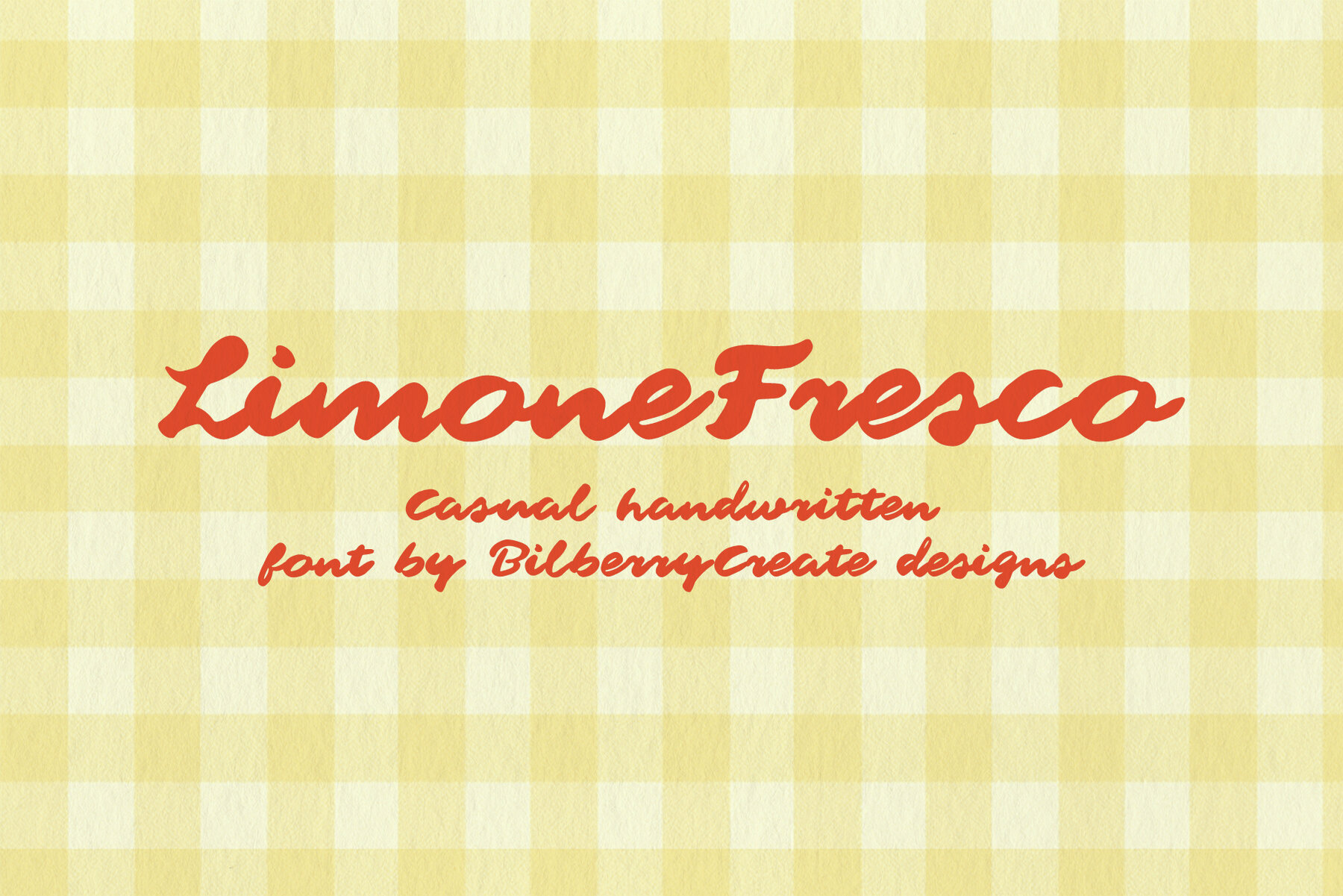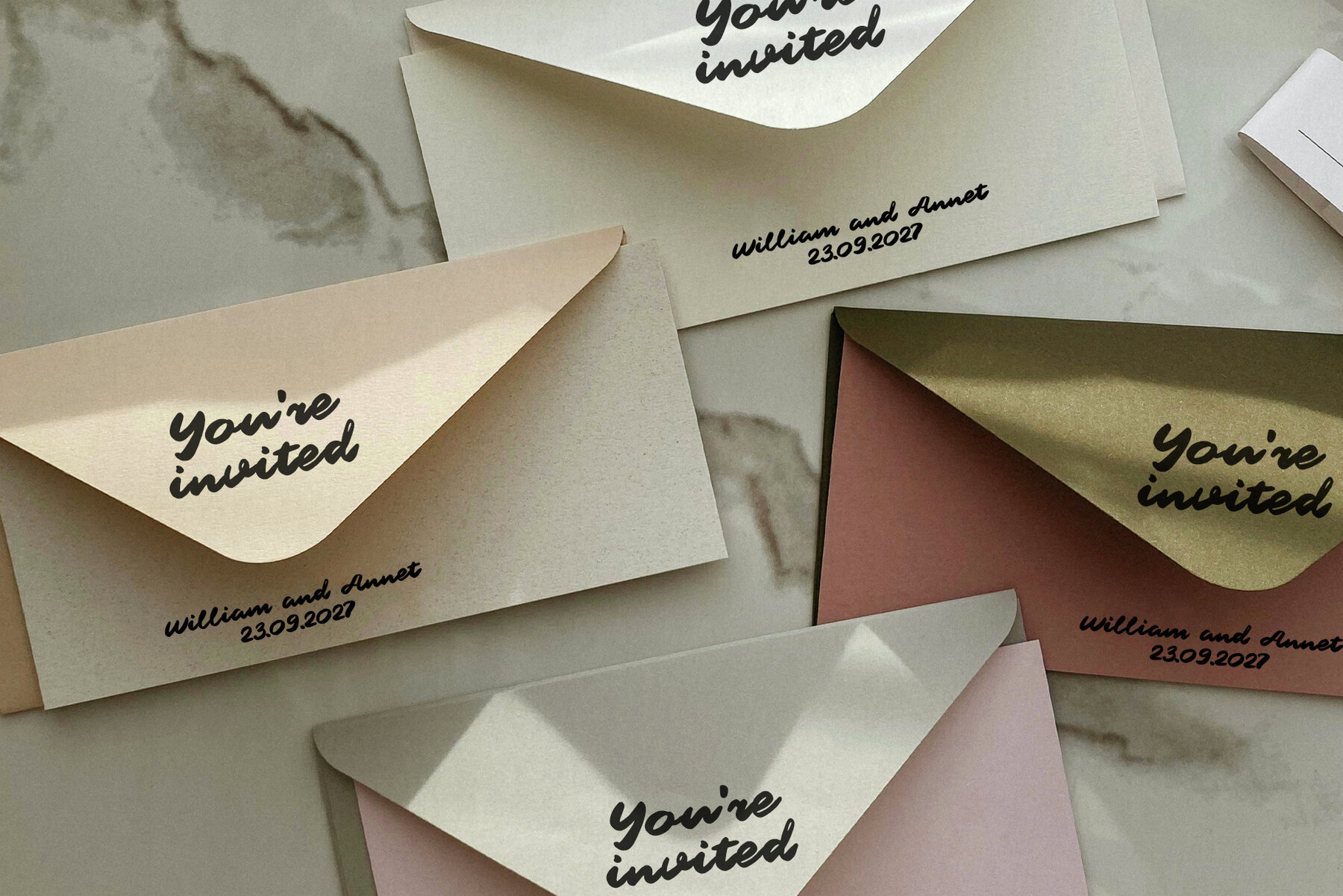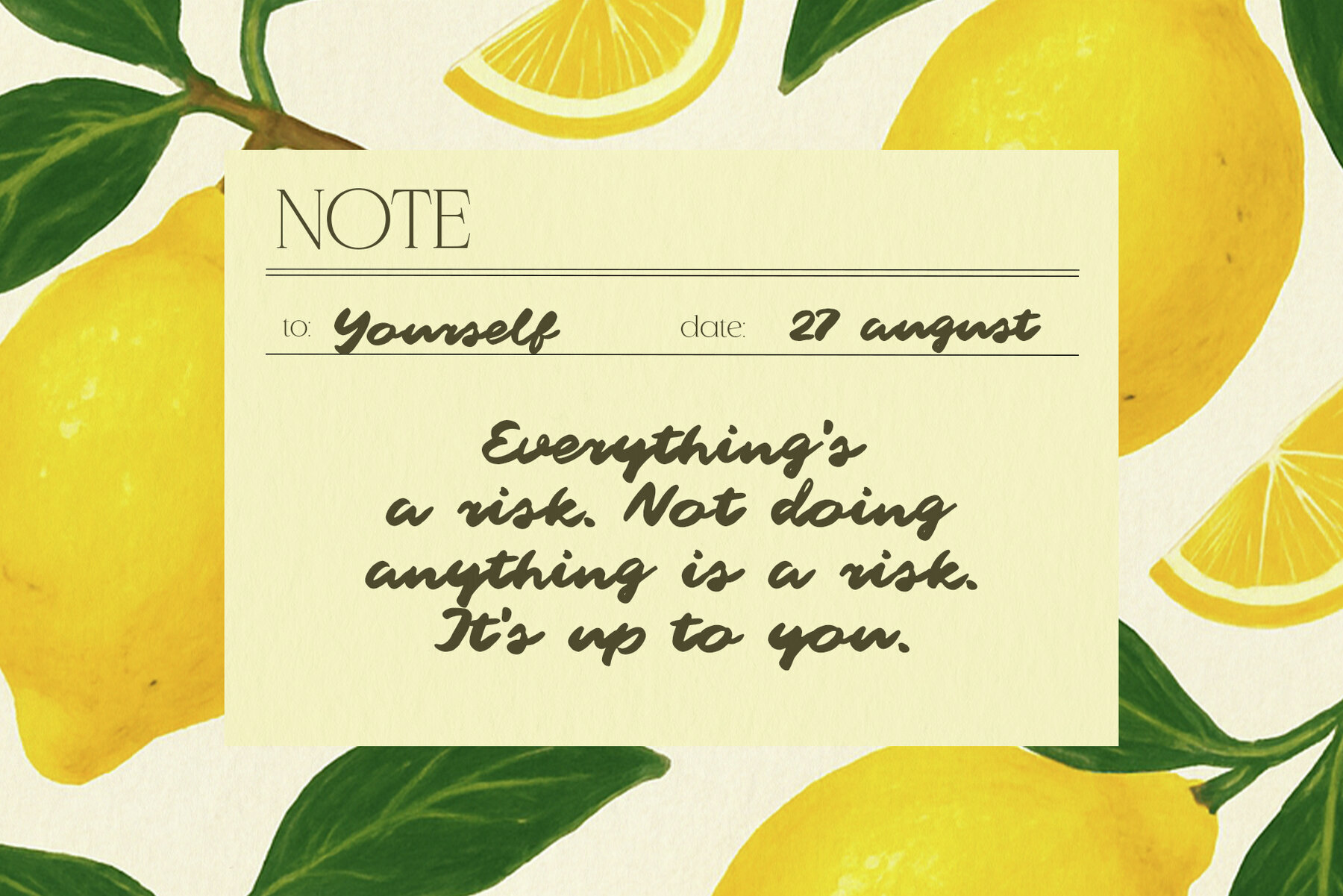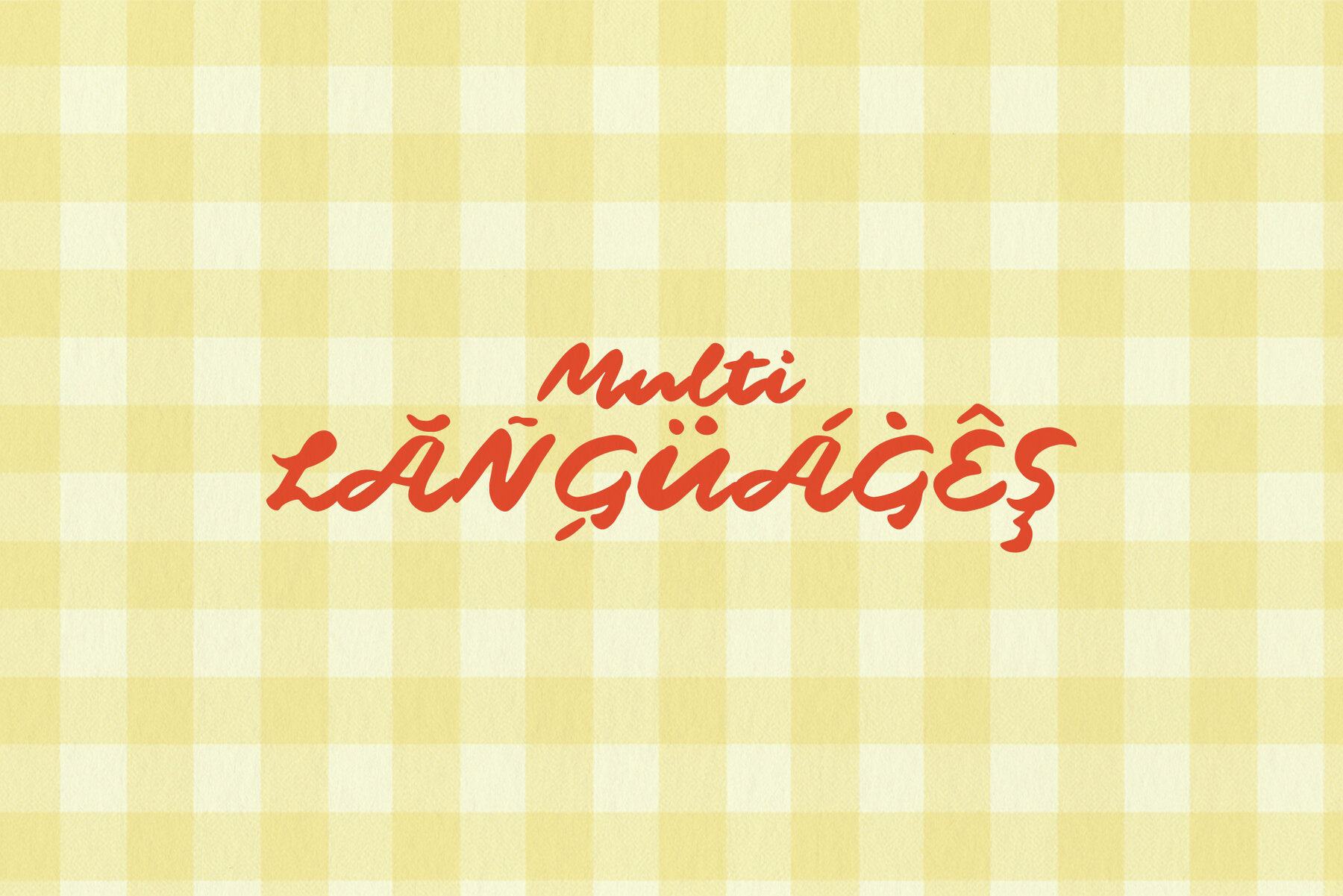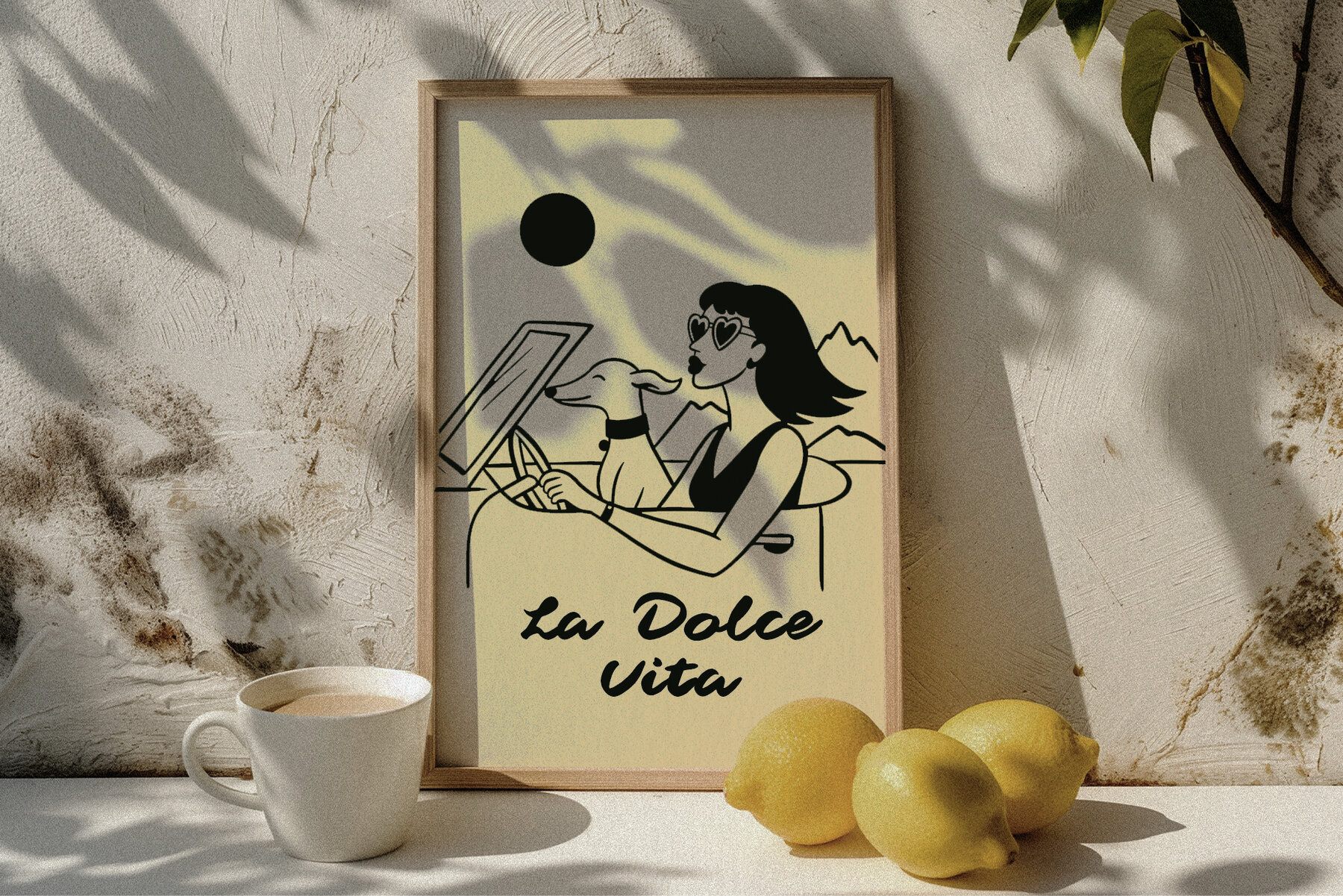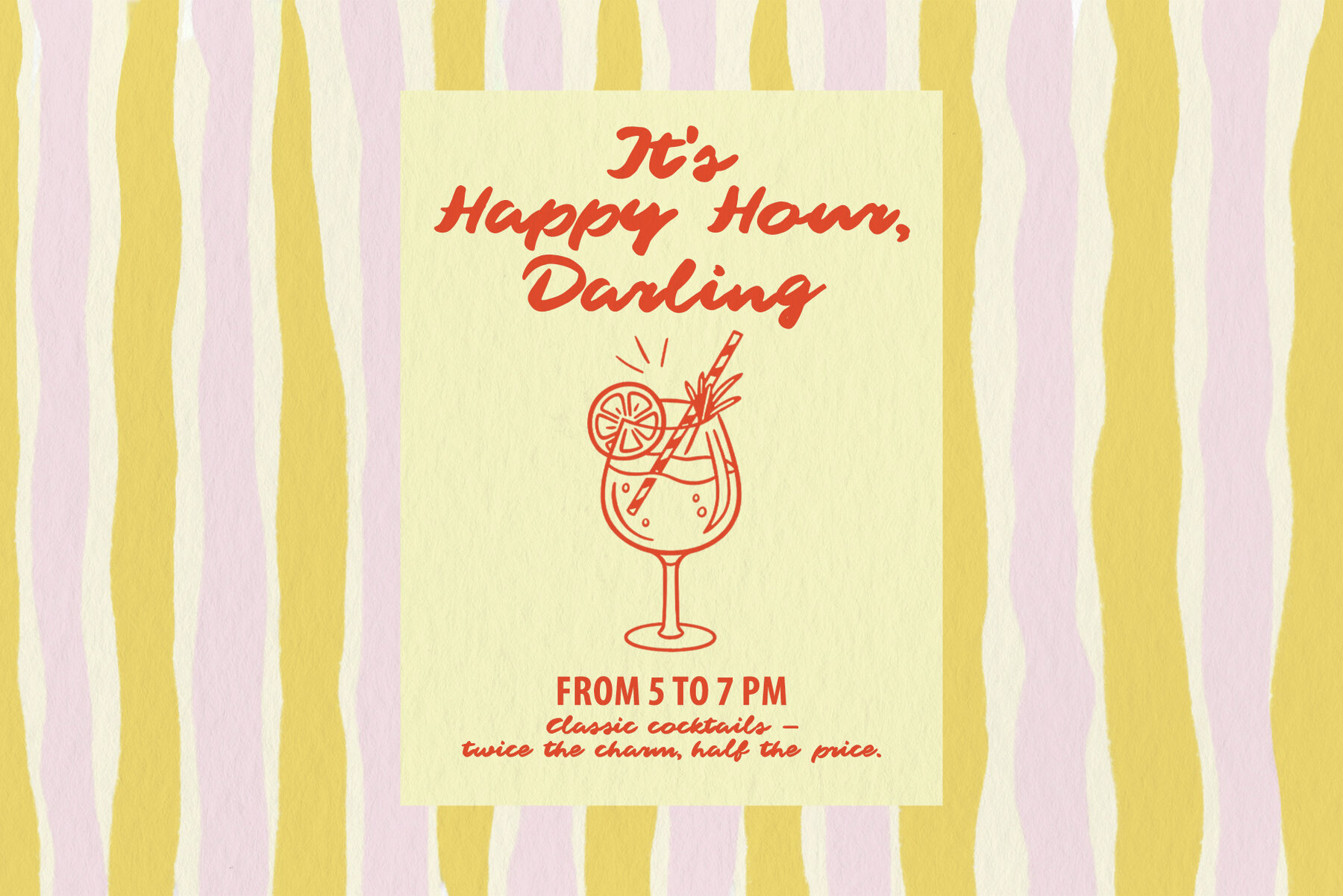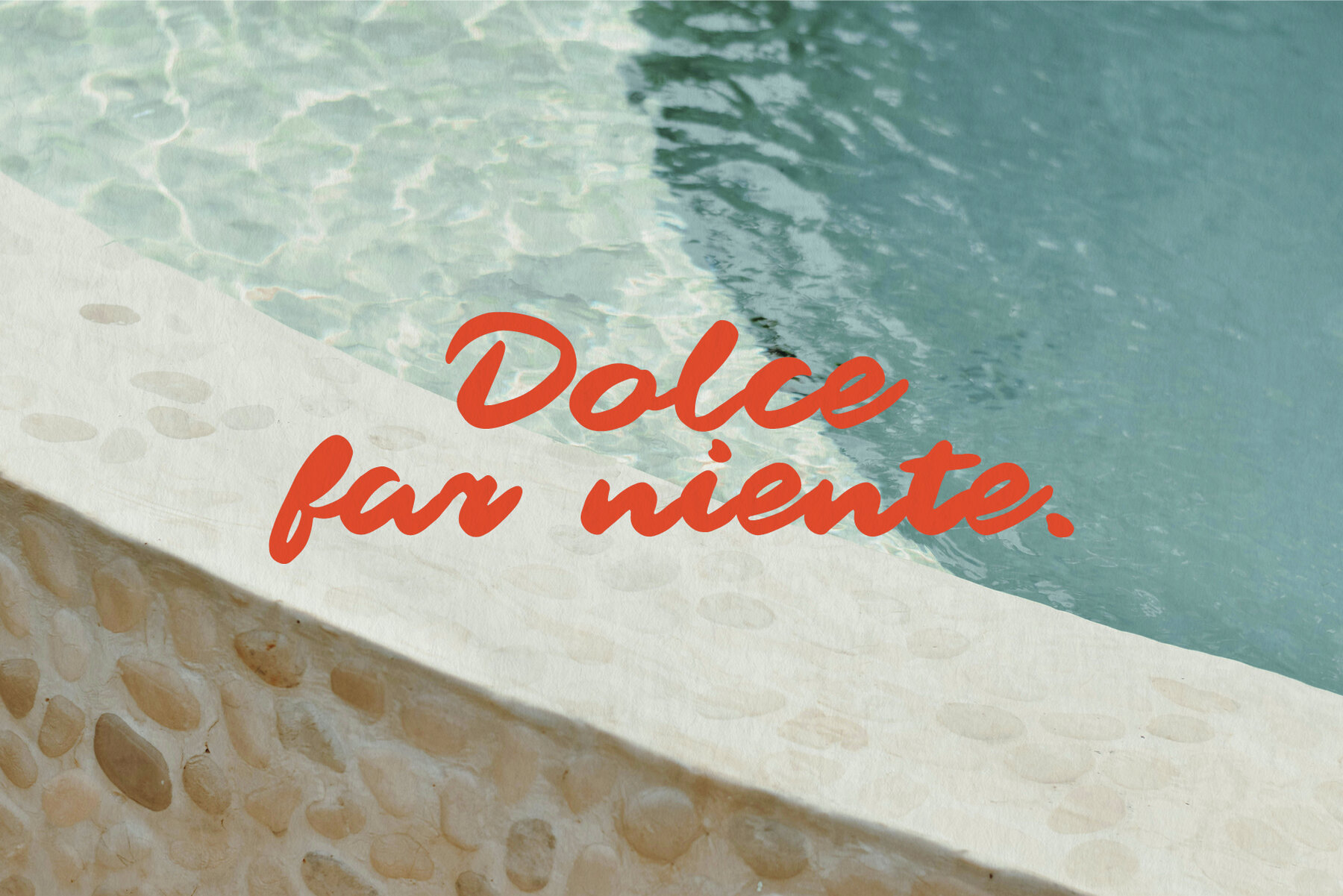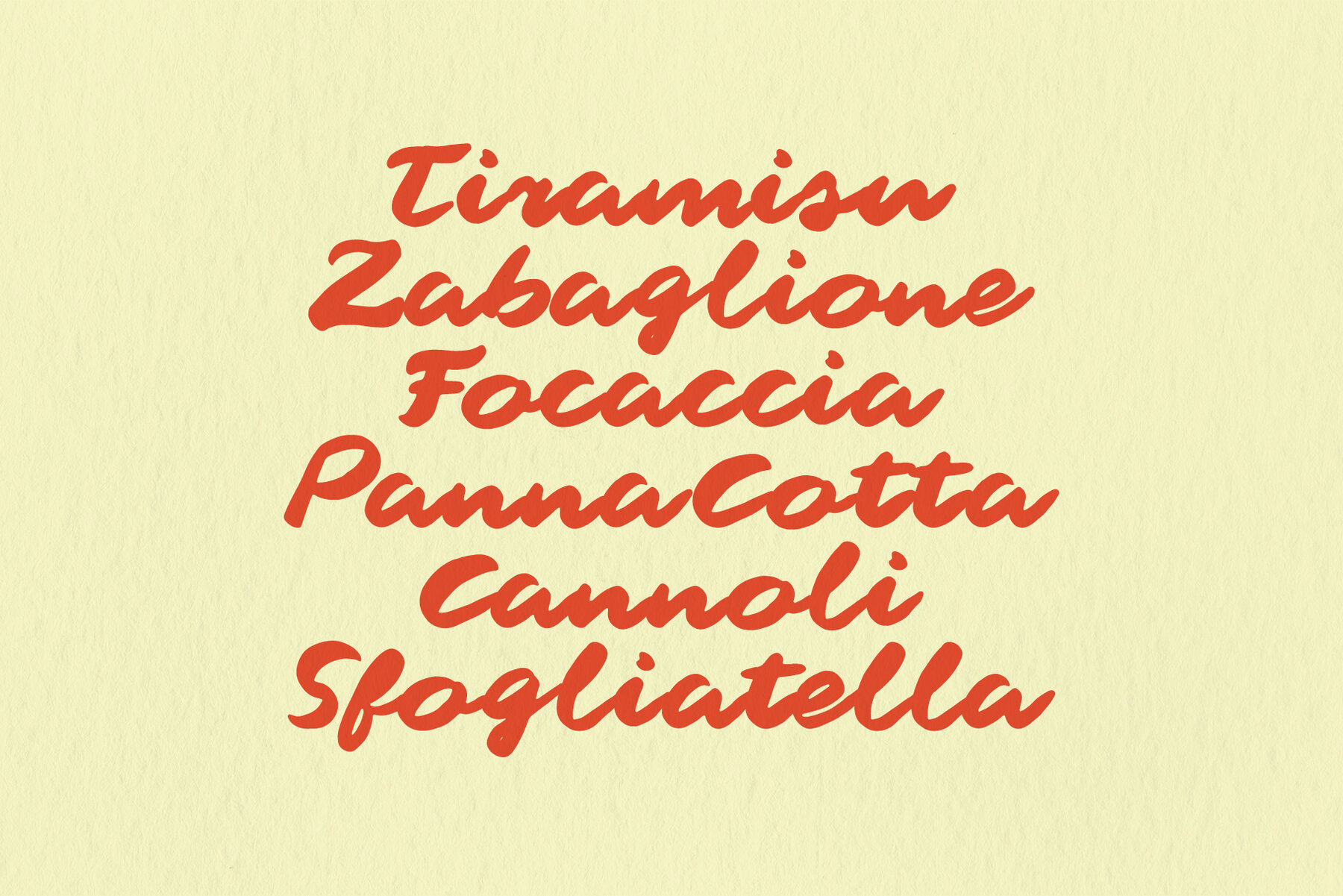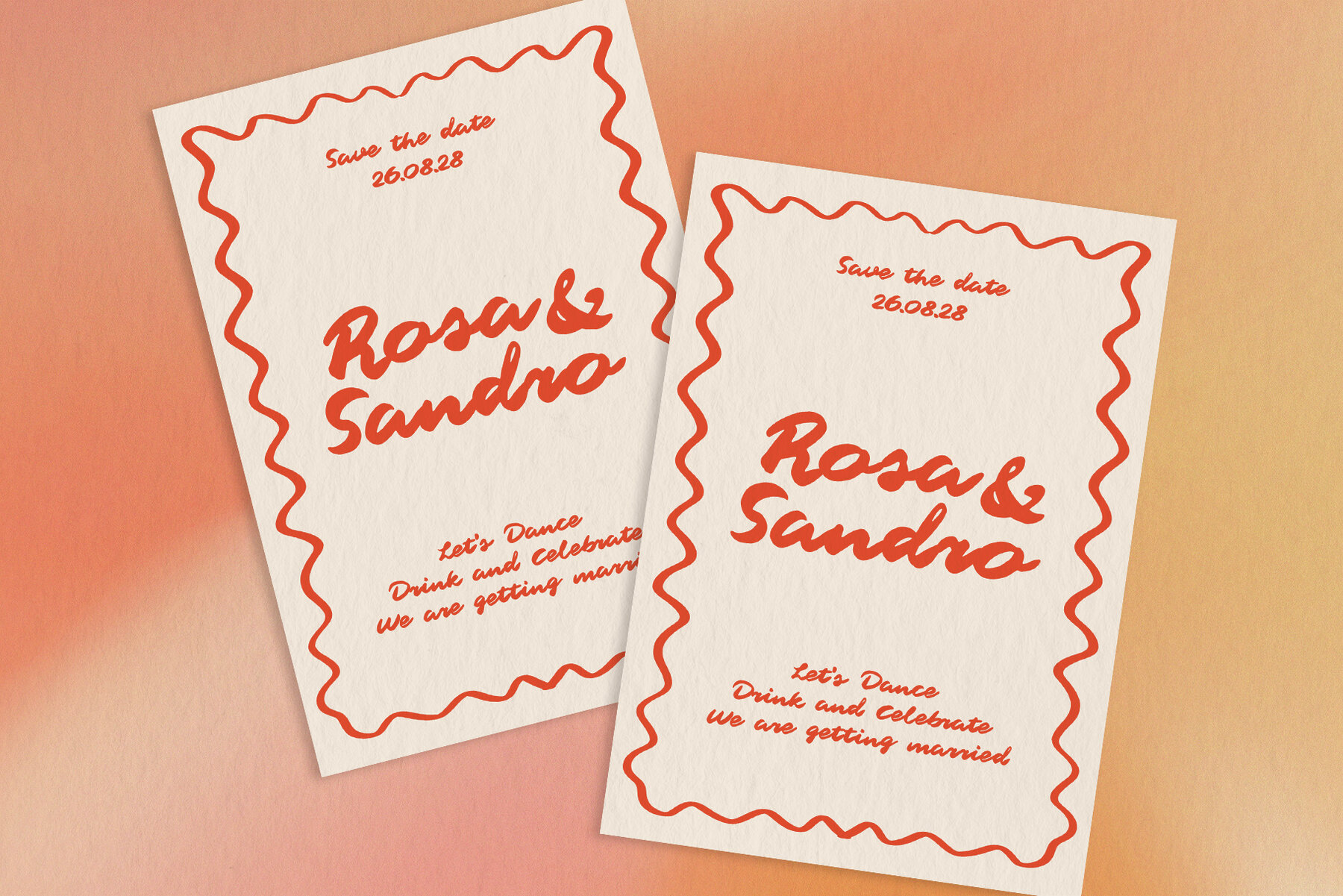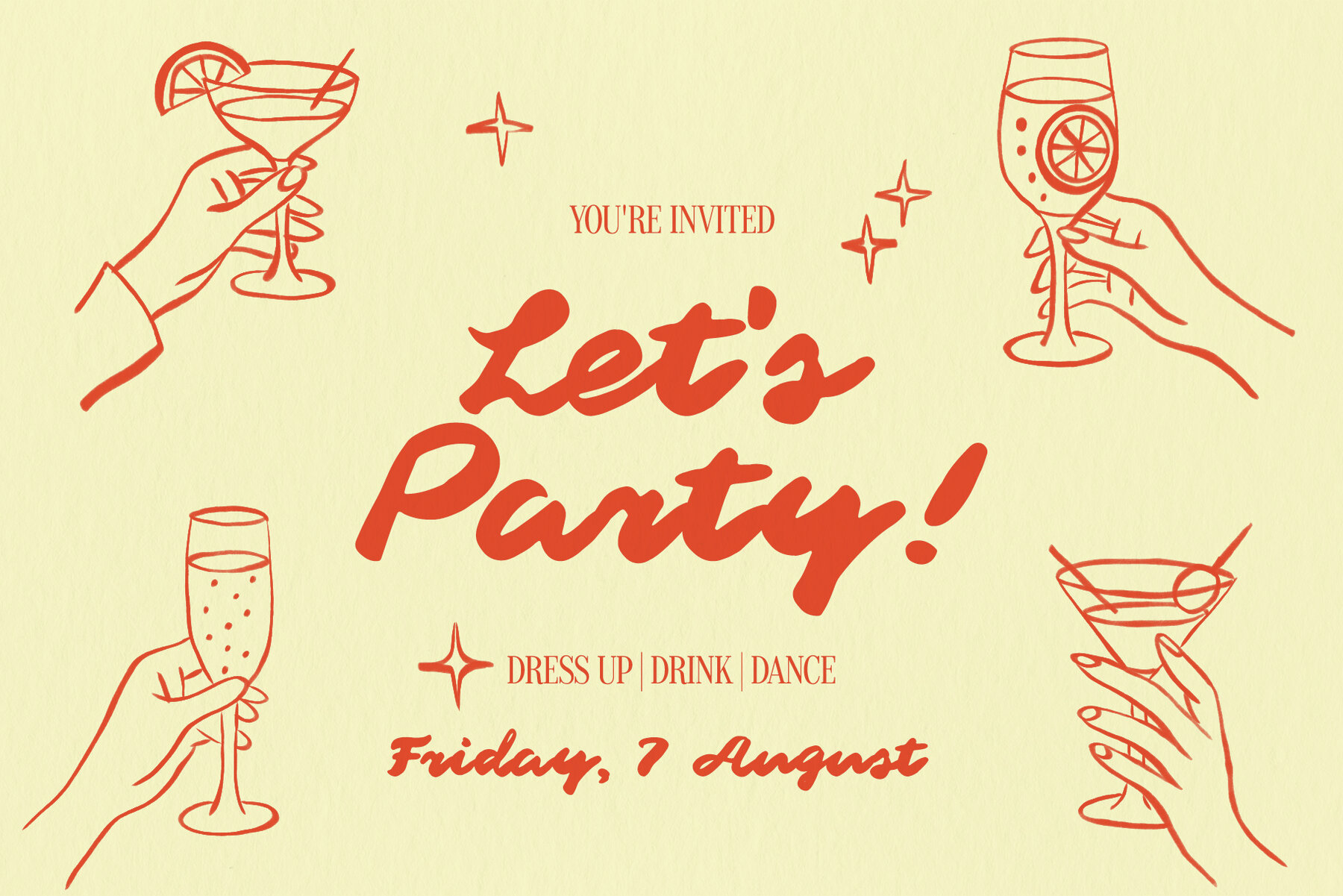
Limone Fresco Font
Limone Fresco Regular
Infuse your designs with the playful charm of Limone Fresco, a handwritten font that embodies the spirit of the Mediterranean. Its slightly imperfect lines and friendly curves deliver a natural, personal touch, reminiscent of a note scribbled on a warm summer morning. Ideal for branding, packaging, social media posts, and quotes, Limone Fresco brings softness and spontaneity wherever it's used. Whether crafting designs for lifestyle, beauty, wellness, or food, this font adds an effortless charm. Let Limone Fresco enhance your projects with its approachable yet stylish demeanor.Limone Fresco Handwritten Font